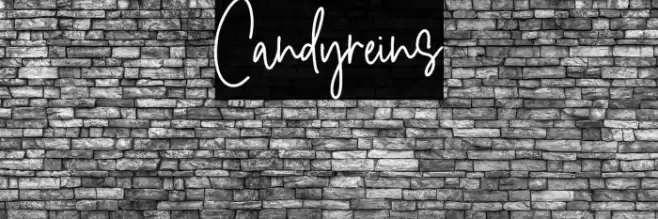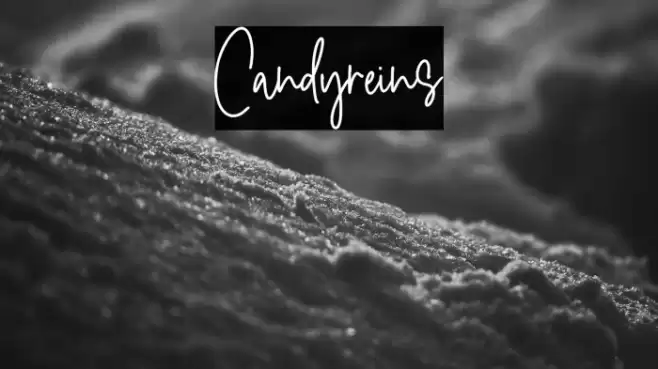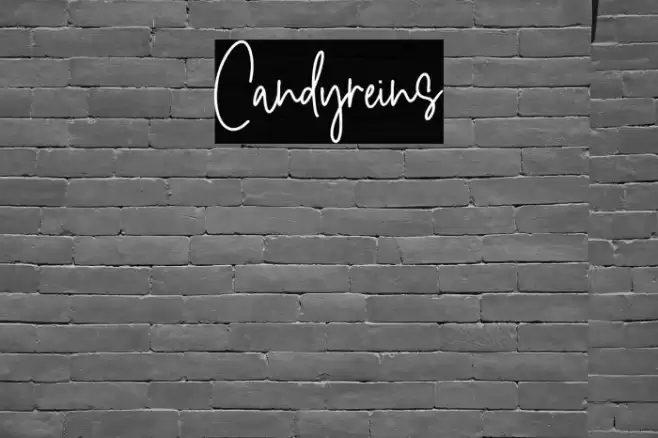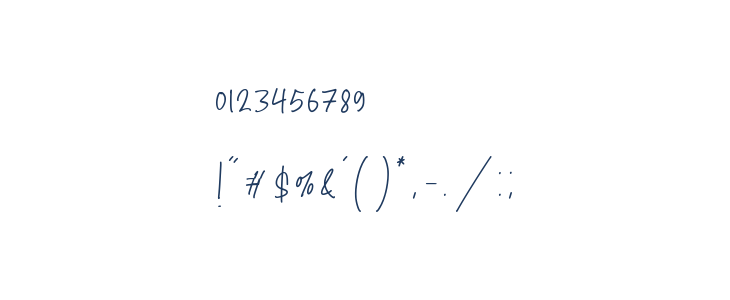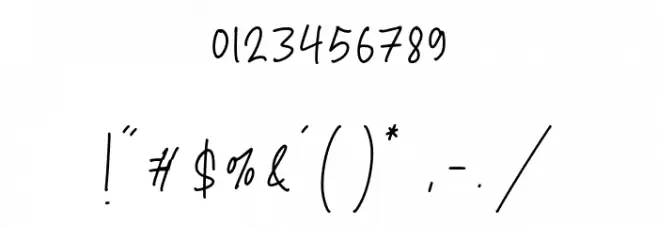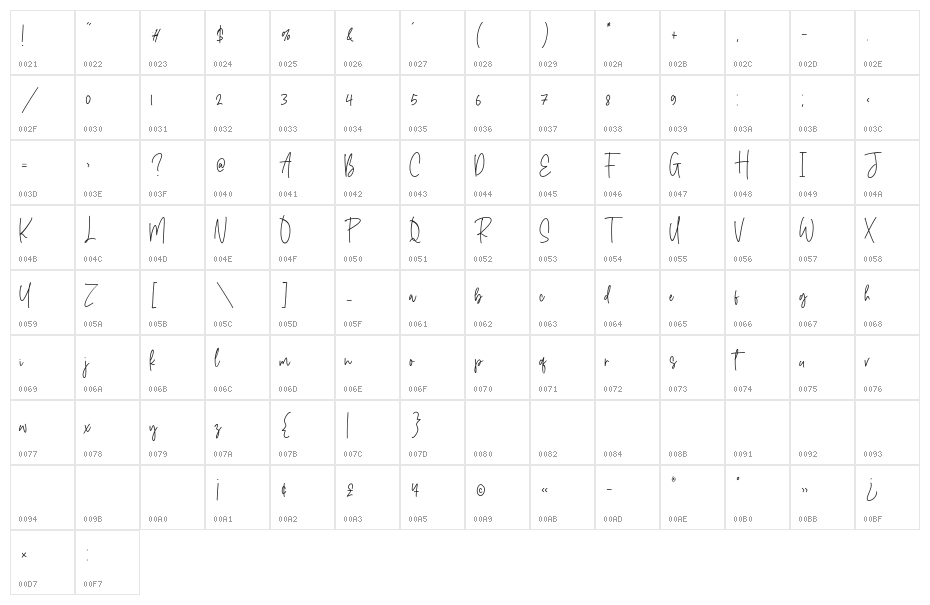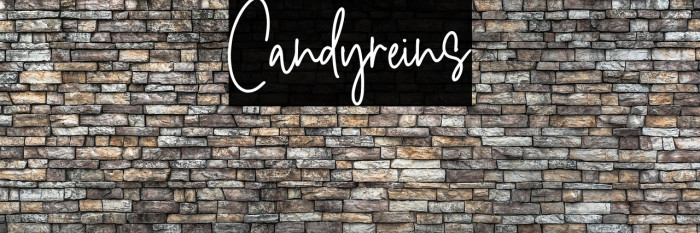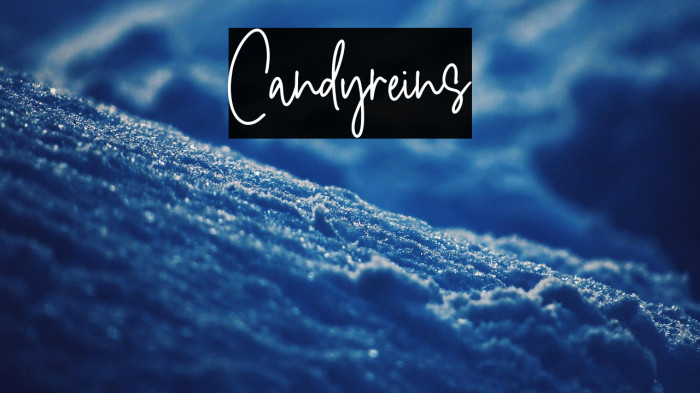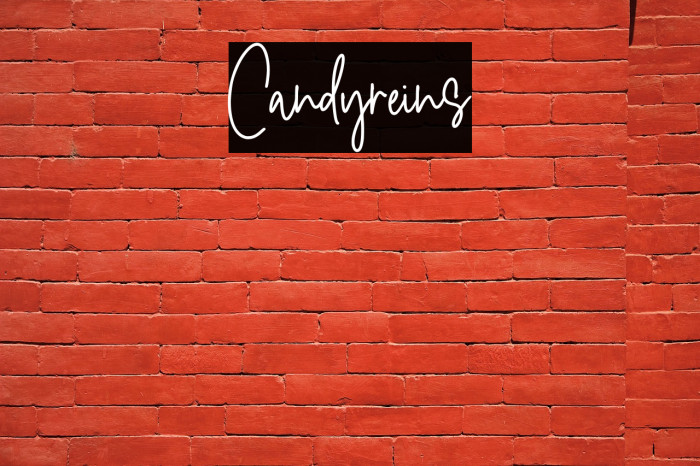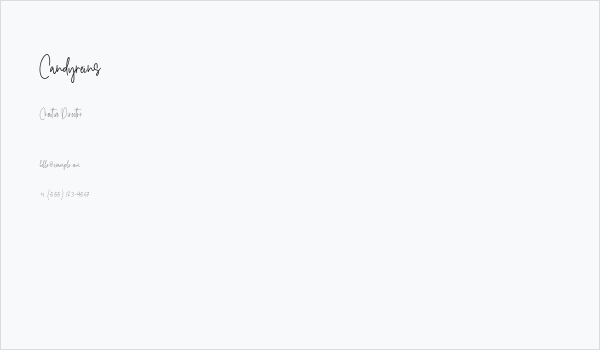
Candyreins Font
Candyreins Description
This font features a playful and whimsical handwritten style, characterized by its flowing and interconnected strokes. The uppercase letters are tall and slightly irregular, adding a casual and friendly vibe. The lowercase letters maintain a consistent flow, with some letters featuring loops and curls that enhance the handwritten aesthetic. The numerals are clear and legible, matching the overall style of the alphabet. Special characters are creatively integrated, maintaining the playful nature of the font. This font is ideal for projects that require a personal touch, such as invitations, greeting cards, or branding for creative businesses.
A playful, whimsical handwritten font with flowing strokes and a casual vibe from Uncategorized fonts.
- Proposed Projects: Ideal for invitations, greeting cards, creative branding, and personal projects.
- Use Case: Logos, Headlines, Invitations